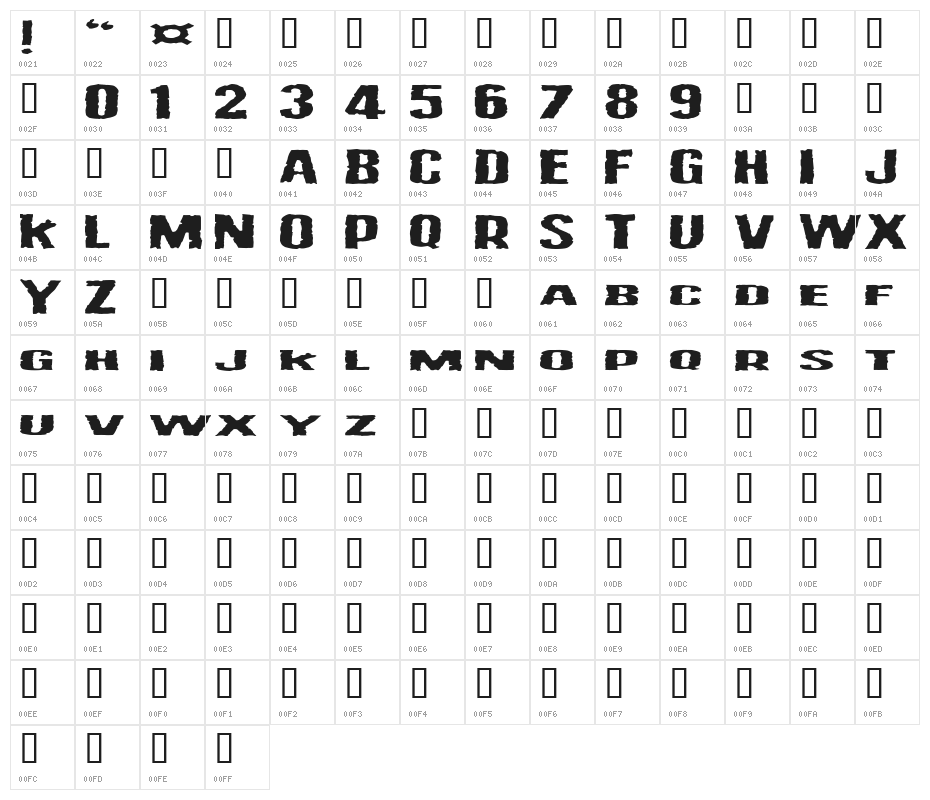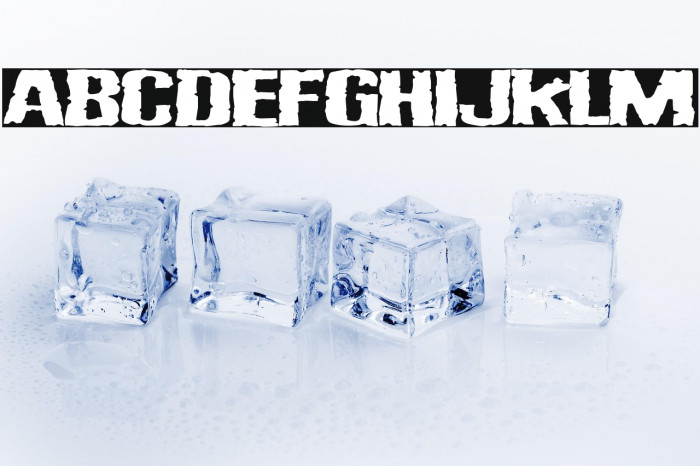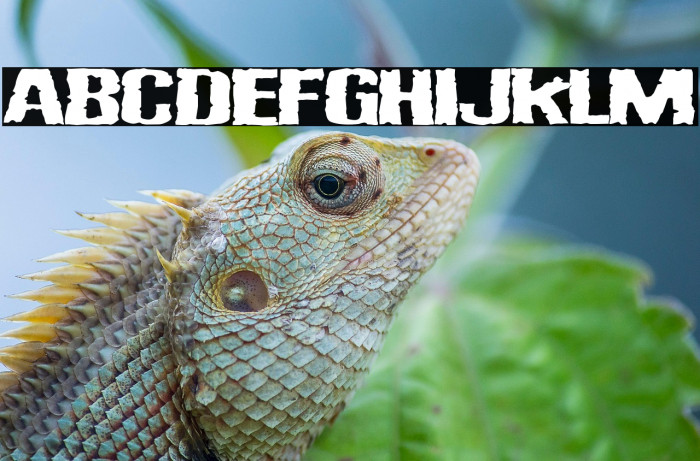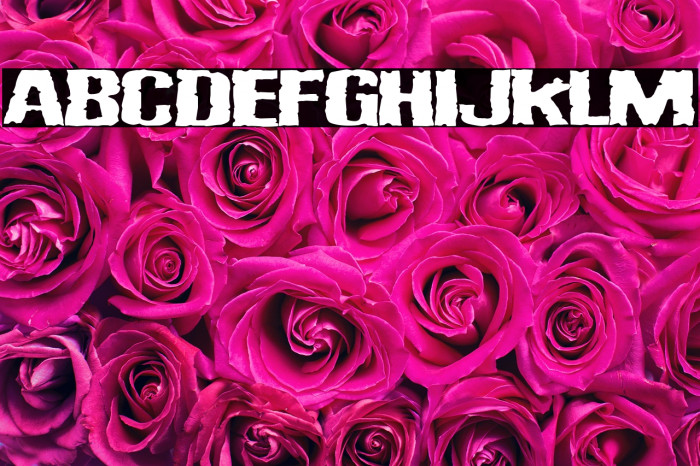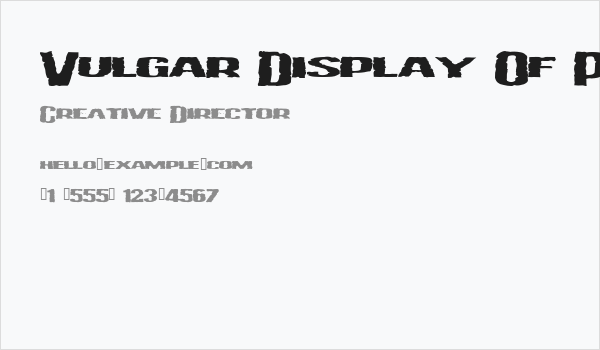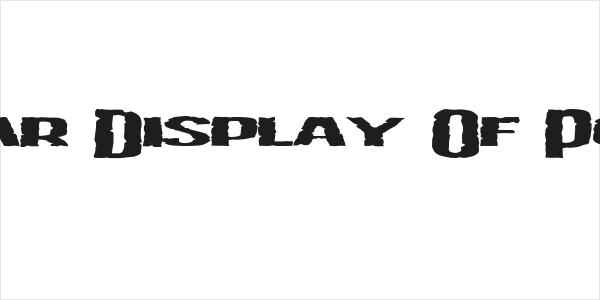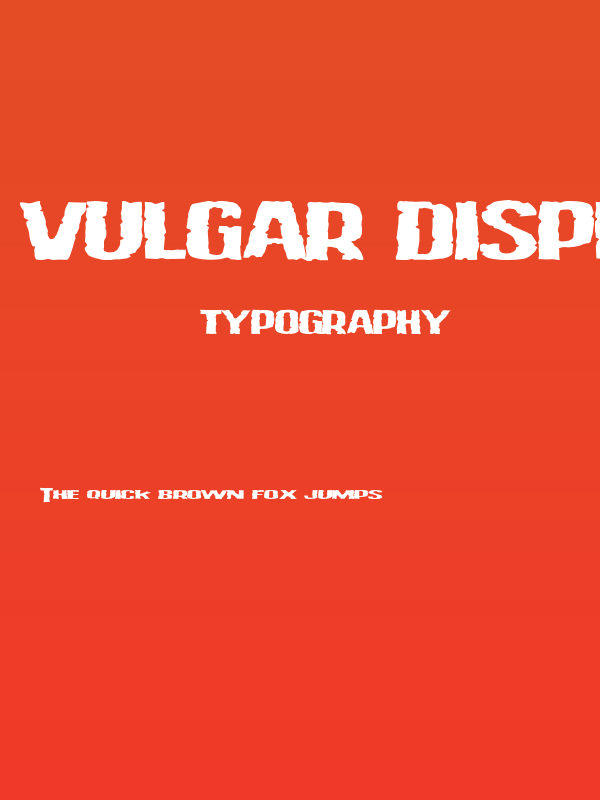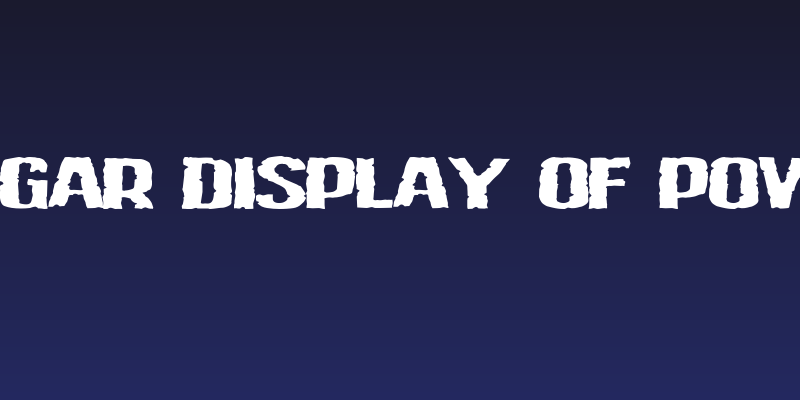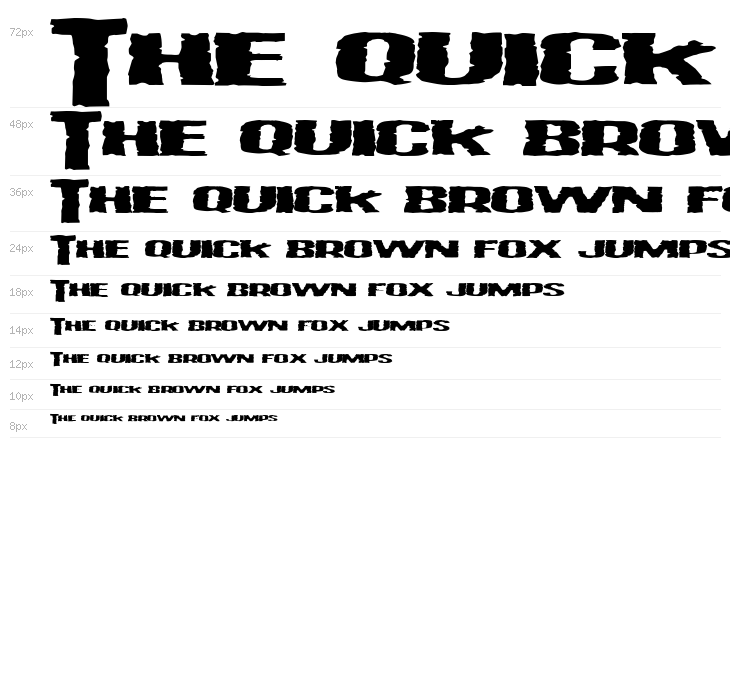
Vulgar Display Of Power Font
Vulgar Display Of Power Description
This font features a bold and aggressive style with a distressed, grunge-like appearance. The characters are heavily textured, giving them a rugged and powerful look. The uppercase and lowercase letters maintain a consistent design, with jagged edges and uneven strokes that create a sense of raw energy. The numbers and special characters follow the same aesthetic, ensuring a cohesive visual impact across all elements. This font is ideal for projects that require a strong, rebellious, or edgy vibe.
| Proposed Projects | Album covers, posters, merchandise for rock bands, extreme sports branding, or any project needing a bold, edgy aesthetic. |